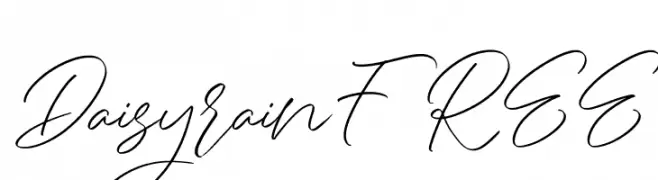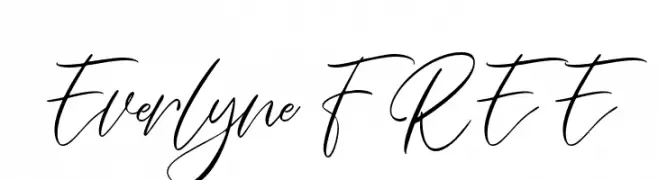
( Aaron Amar - www.behance.net/aaronamar )
A bold, dynamic font with a playful and energetic style.
( Agung Rohmat )
A playful and elegant handwritten font with flowing, cursive letterforms.
( Ardyana Types - Ardyana Putra - www.ardyanatypes.com )
A dynamic and fluid script font with elegant, handwritten characteristics.
( Aulia Rahman - creativemarket.com/ARN )
A bold, dynamic script font with high contrast and flowing letterforms.
( Bellini Studio - Savio Bellini - www.bellinistudio.eu )
A diverse collection of ampersand designs ranging from elegant to modern.
( Bellini Studio - Savio Bellini - www.bellinistudio.eu )
A modern, italic font with clean lines and balanced proportions.
( Bellini Studio - Savio Bellini - www.bellinistudio.eu )
A modern, clean sans-serif font with balanced spacing and consistent stroke width.
( Craft Supply Co. - creativemarket.com/craftsupplyco )
A refined serif font with tall, narrow letterforms and high contrast strokes.
( Craft Supply Co. - creativemarket.com/craftsupplyco )
An elegant serif typeface with a refined italic style and pronounced serifs.
( Craft Supply Co. - creativemarket.com/craftsupplyco )
A modern sans-serif font with rounded edges and uniform stroke width.
( Craft Supply Co. - creativemarket.com/craftsupplyco )
A bold, rounded vintage-style font with a friendly and approachable appearance.
( Craft Supply Co. - creativemarket.com/craftsupplyco )
A rough, hand-drawn font with a vintage, organic feel.
( Craft Supply Co. - creativemarket.com/craftsupplyco )
A playful, hand-drawn outline font with a whimsical and artistic style.
( Craft Supply Co. - creativemarket.com/craftsupplyco )
A bold, geometric font with a sporty, structured design.
( Craft Supply Co. - creativemarket.com/craftsupplyco )
A fluid and dynamic handwritten font with a natural cursive style.
( Craft Supply Co. - creativemarket.com/craftsupplyco )
A bold, expressive handwritten font with dynamic strokes.
( Craft Supply Co. - creativemarket.com/craftsupplyco )
A bold, outlined font with geometric and modern characteristics.
( Craft Supply Co. - creativemarket.com/craftsupplyco )
A rugged, vintage-style font with a textured, worn appearance.
( Craft Supply Co. - creativemarket.com/craftsupplyco )
A bold, outlined serif font with a classic and structured design.
( Craft Supply Co. - creativemarket.com/craftsupplyco )
A bold, textured font with a vintage, handcrafted appearance.
( Daniel Freeman - www.freedanstudios.com )
A modern, geometric font with rounded edges and consistent stroke widths.
( Degi Kurniawan )
A classic serif font with elegant curves and sharp serifs.
( Dikas Studio - Andika Setiawan - creativemarket.com/?u=DikasStudio )
A bold, expressive handwritten font with playful curves and thick strokes.
( Dikas Studio - Andika Setiawan - creativemarket.com/?u=DikasStudio )
A bold, brush script font with a dynamic and artistic style.
( Dirtyline Studio - Hendra Maulia - creativemarket.com/h_m )
A sophisticated script font with elegant, flowing cursive strokes.